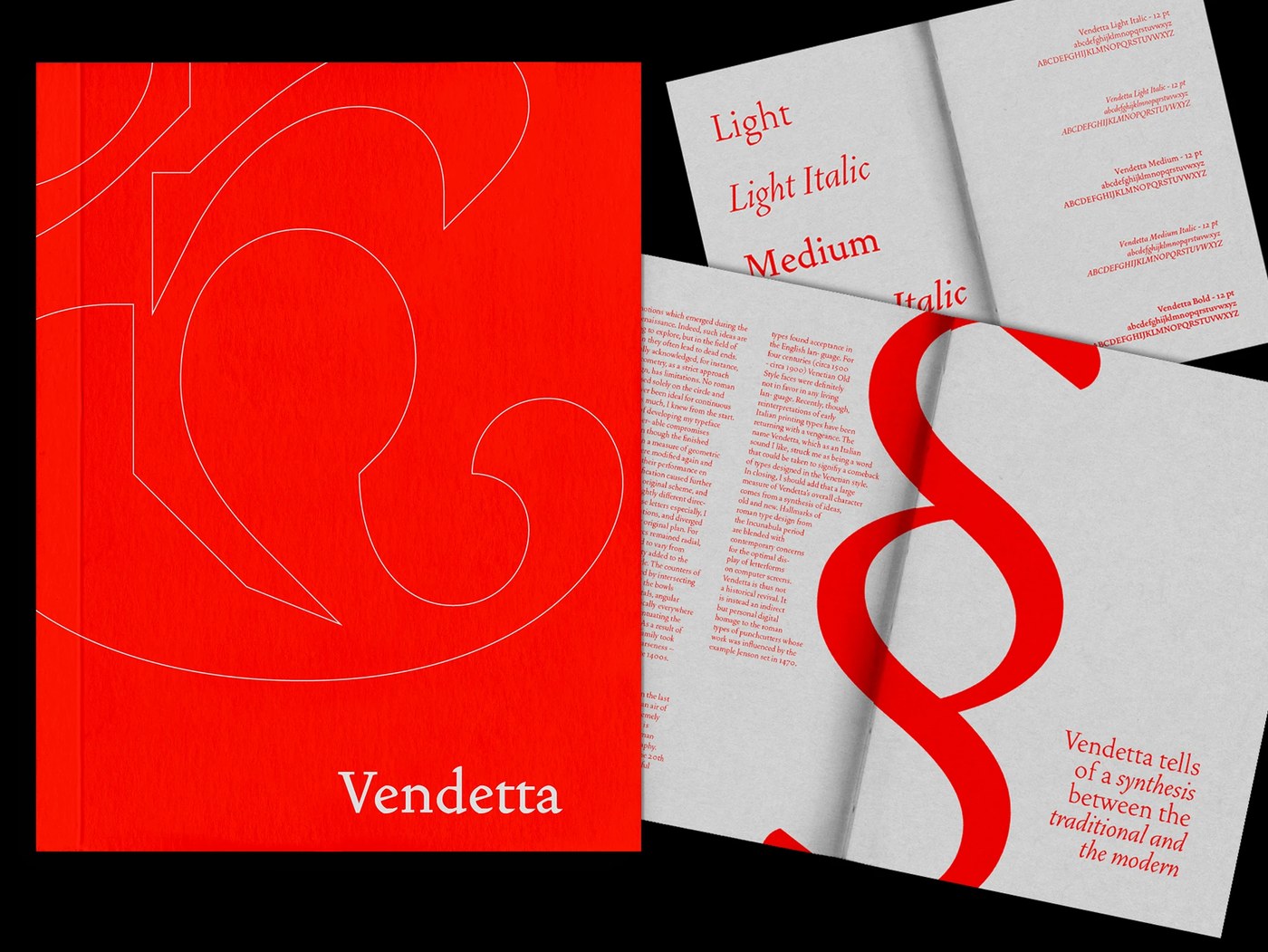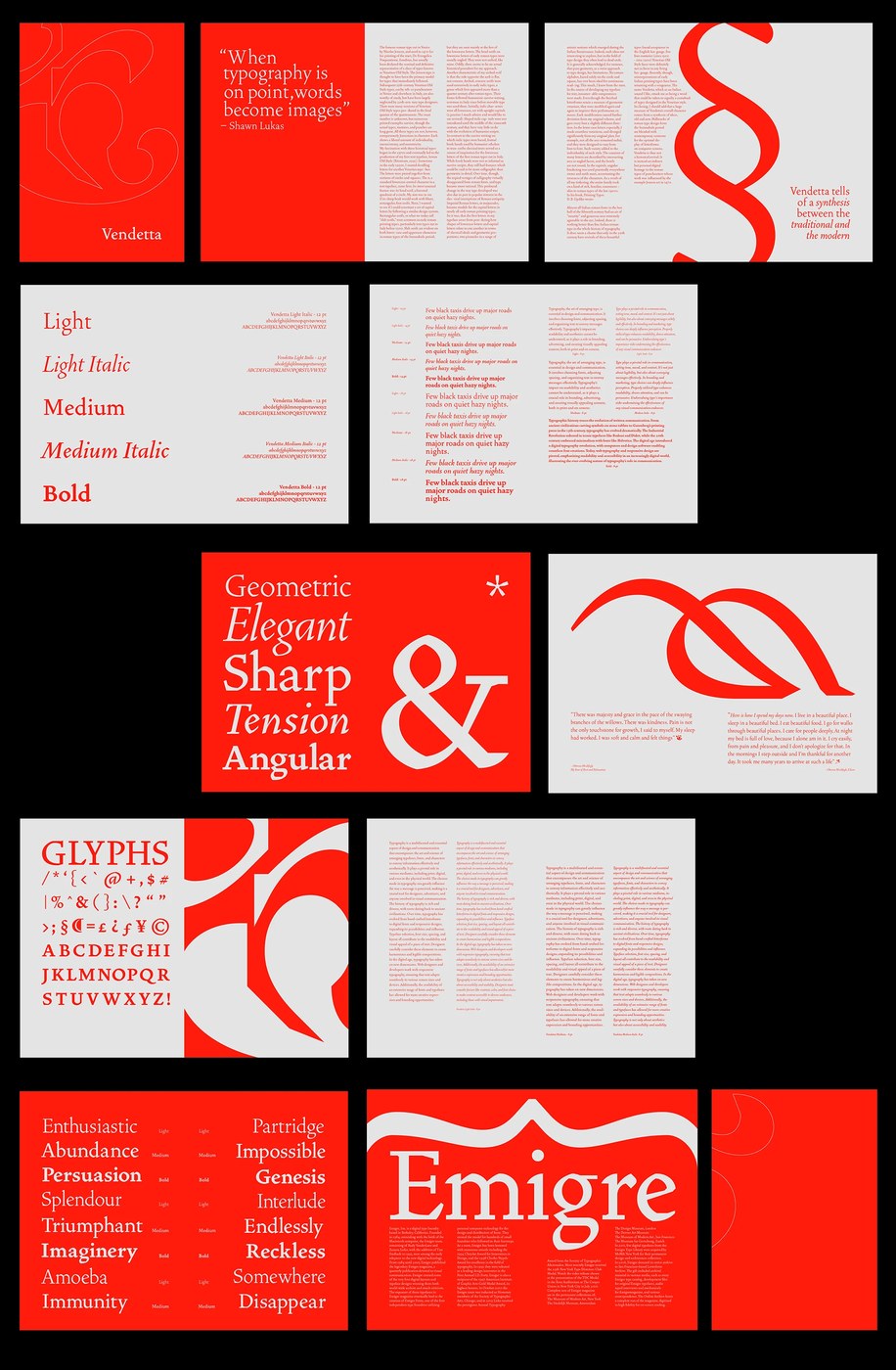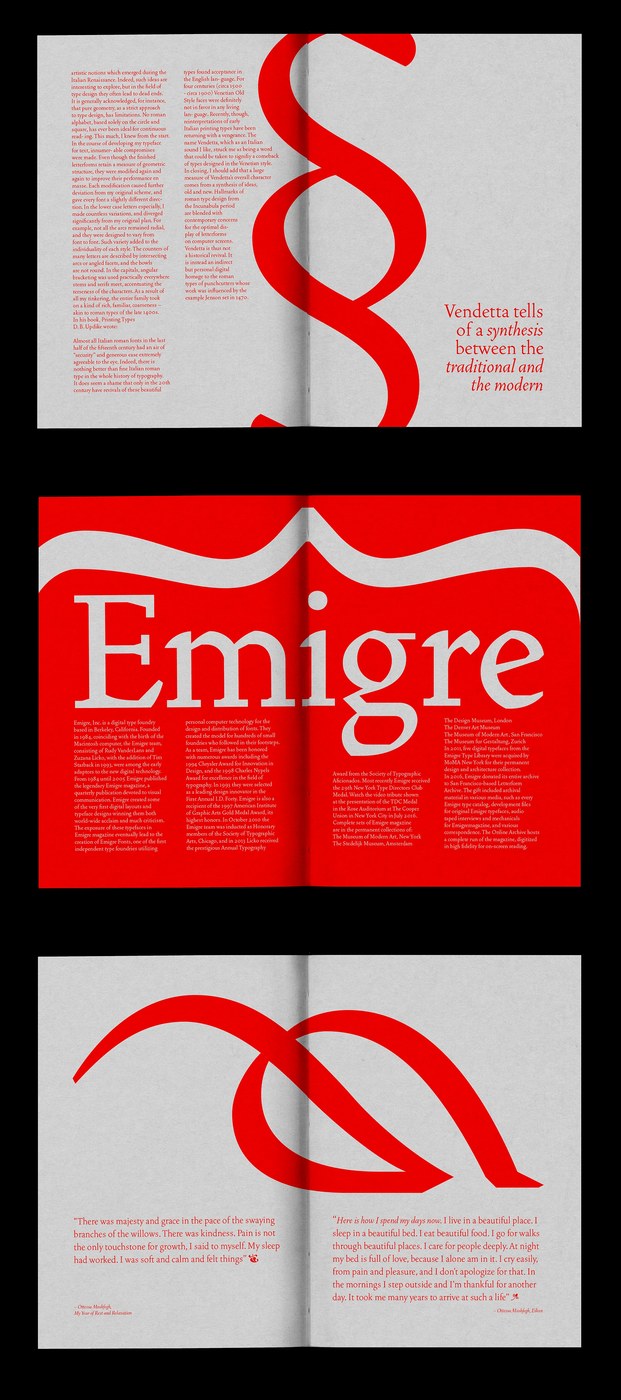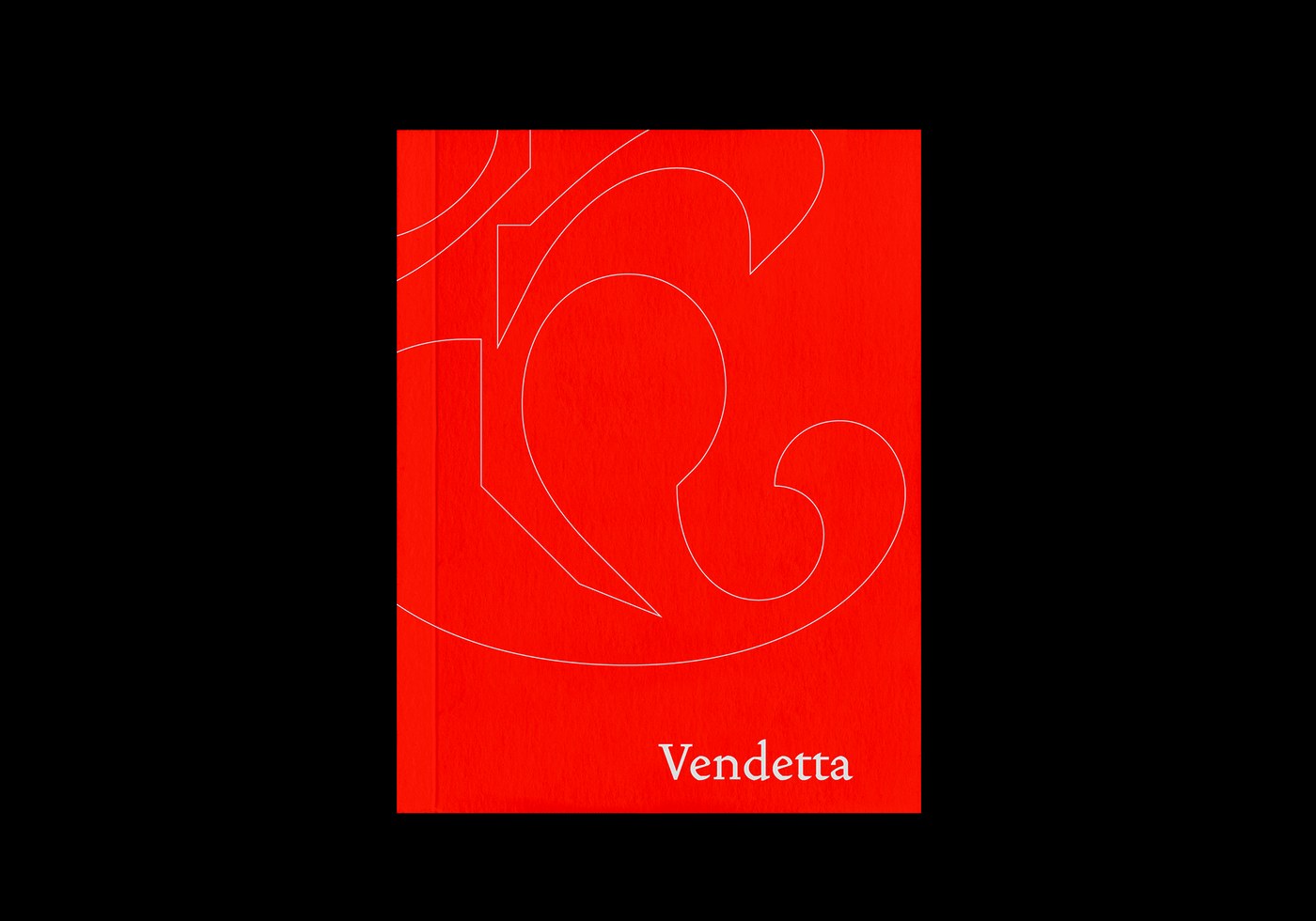
Bruno King’s Vendetta Typeface Specimen Book Redefines Typographic Craft Through Rigorous Design and Historical Synthesis.
On July 28, 2026, the design world was presented with a seminal work from designer Bruno King, whose Vendetta typeface specimen book has emerged as a significant contribution to contemporary typographic design. Published by abduzeedo, the project meticulously explores the Vendetta typeface, demonstrating a profound understanding of print scale, historical proportions, and the intricate balance required for an intimate and engaging reading experience. This specimen book stands as a testament to King’s rigorous grid discipline and his ability to establish strict typographic contrast, creating an artifact that is both a practical tool and a work of art.
The Genesis of a Typographic Exploration: Bruno King’s Vision
Bruno King, an acclaimed graphic designer with a reputation for meticulous detail and innovative approaches to print media, embarked on the Vendetta typeface specimen project with a clear objective: to showcase the versatility and inherent characteristics of the Vendetta typeface in a manner that transcends conventional specimen presentations. The Vendetta typeface itself, while not explicitly detailed in its origins, is understood through King’s specimen to be a sophisticated design, likely a contemporary serif that draws upon classical letterforms while incorporating modern sharpness and efficiency. Its nuanced design requires a thoughtful presentation to fully appreciate its potential in various applications, from editorial layouts to sophisticated branding.
King’s motivation stemmed from a desire to bridge the gap between digital typeface representation and the tactile, immersive experience of print. In an era increasingly dominated by screen-based media, the physical specimen book offers a unique opportunity for designers to engage with type on a deeper, more sensory level. This project, therefore, is not merely a catalogue of characters but an exploration of how typography interacts with paper, ink, and the human eye, guided by a designer’s intent.
The Enduring Role of the Type Specimen Book in a Digital Age
Historically, type specimen books have been indispensable tools for printers, typographers, and designers. Dating back to the 15th century with early examples from masters like Nicolas Jenson and Claude Garamond, these books served as comprehensive catalogues of available typefaces, showcasing various weights, styles, and sizes, often accompanied by example text. They were crucial for demonstrating the aesthetic qualities and practical applications of new type designs. Iconic specimens from the likes of John Baskerville in the 18th century or the comprehensive volumes from type foundries like Linotype and Monotype in the 20th century, provided not only samples but also insights into the philosophy and craft behind the type.
In the 21st century, with the proliferation of digital type libraries and online font previews, the physical type specimen might seem anachronistic. However, King’s Vendetta specimen underscores its enduring relevance. A digital preview, while convenient, often fails to convey the subtle nuances of a typeface in print – its ink spread, its texture against paper, and its optical weight. A well-designed physical specimen, like King’s, allows for a comprehensive evaluation, enabling designers to assess legibility, spatial rhythm, and overall aesthetic impact in a tangible format. It transforms the act of choosing a typeface into an intimate encounter, moving beyond mere functionality to an appreciation of typographic art.
A Masterclass in Grid Systems and Typographic Hierarchy
Central to King’s design philosophy for the Vendetta specimen is a rigorous grid discipline. The project exemplifies how a meticulously constructed grid can serve as an invisible scaffold, bringing order, harmony, and a dynamic visual rhythm to the page. While the specific grid system employed is not detailed, the outcome suggests a sophisticated modular or classical grid, possibly drawing inspiration from historical canons such as the Golden Ratio or the Van de Graaf canon, which govern page proportions and text block placement. This underlying structure is not overtly visible but manifests in the precise alignment, consistent margins, and balanced composition of every spread.
King establishes strict typographic contrast as a key element of the specimen’s hierarchy. Display headlines are rendered in large scales, commanding immediate attention and showcasing the typeface’s assertive qualities. In stark contrast, paragraph copy maintains exceptional legibility, a critical attribute for any functional typeface. This interplay between large, impactful display text and clear, readable body text is crucial for demonstrating Vendetta’s versatility across different hierarchical levels within a publication. Each layout is engineered to force the reader to engage closely with the content, transforming the act of reading into an intimate experience. The deliberate use of geometric proportions throughout the design builds a subtle tension, guiding the eye and enhancing the overall aesthetic appeal without sacrificing clarity. This approach underscores the principle that visual hierarchy, when masterfully executed, enhances both beauty and utility.
Synthesizing Tradition and Modernity: A Design Philosophy
The Vendetta specimen is a masterful synthesis of traditional typographic sensibilities and modern design aesthetics. Bruno King adeptly uses the design to show the typeface’s inherent versatility, proving its adaptability across various contexts. The book celebrates historical body copy, presenting the typeface in layouts that echo the elegance and meticulousness of classic book design, while simultaneously employing high-contrast layouts and contemporary graphic elements.
One notable feature is the strategic placement of novel quotes in larger sizes. This highlights the flexibility of Vendetta for pull-out quotes, allowing designers to see how the typeface performs when given prominence, drawing the reader’s attention to key insights or impactful statements. Clear margins, often generous, frame the content beautifully, providing ample white space that breathes life into the text blocks and prevents visual clutter. Elegant spacing, both between lines (leading) and characters (tracking), guides the reader seamlessly through the text, ensuring an unhindered flow of information. Every spread adheres to deliberate spatial rules, creating a visual rhythm that guides the eye across the physical substrate, from one page to the next. The choice of paper stock and binding, though not specified, is implicitly high-quality, contributing to the artifact’s systematic and respectful demonstration of craft. The accompanying images, showing a minimalist printed book cover and detailed inner spreads, suggest a refined tactile experience. The image detailing custom geometric glyph alignments hints at the precise, almost architectural nature of Vendetta’s characters, while the display of variable character animation implies the typeface’s contemporary adaptability and potential for dynamic application.